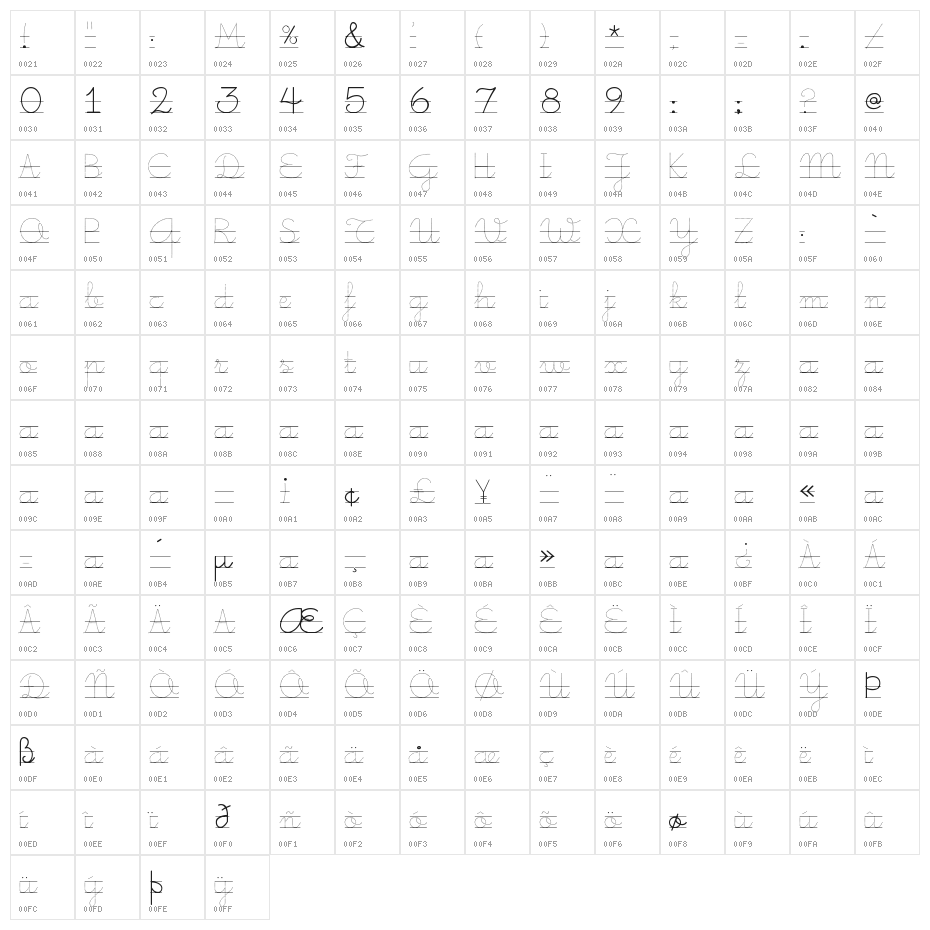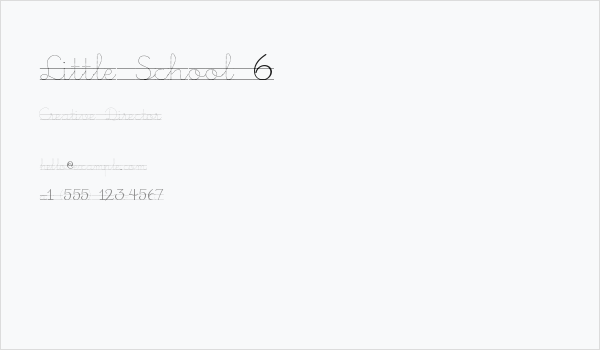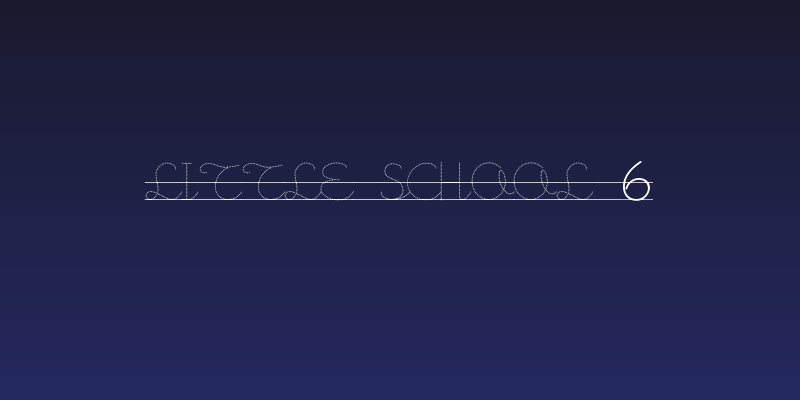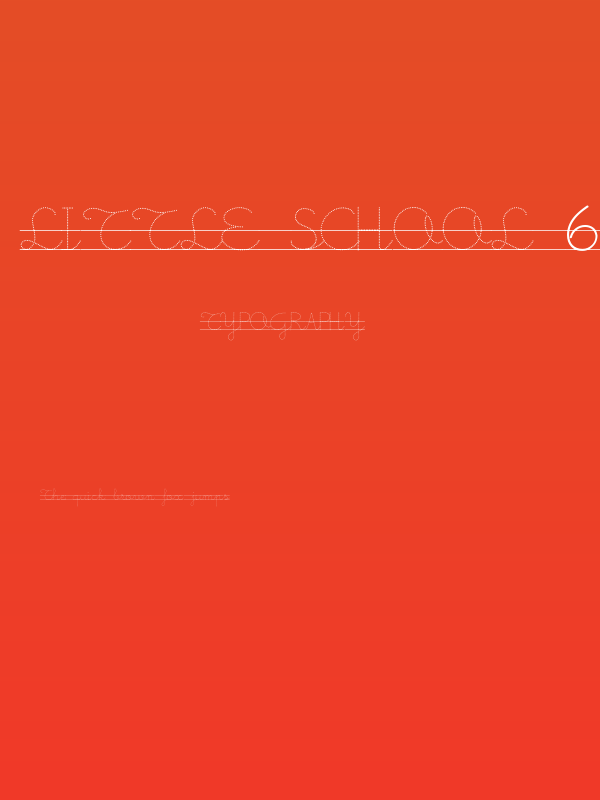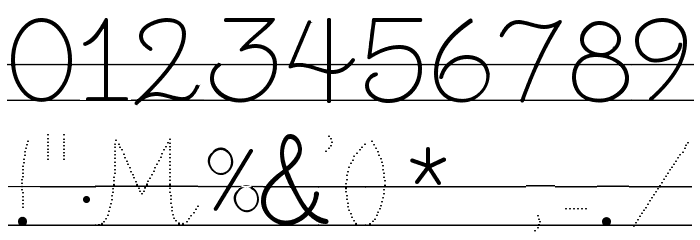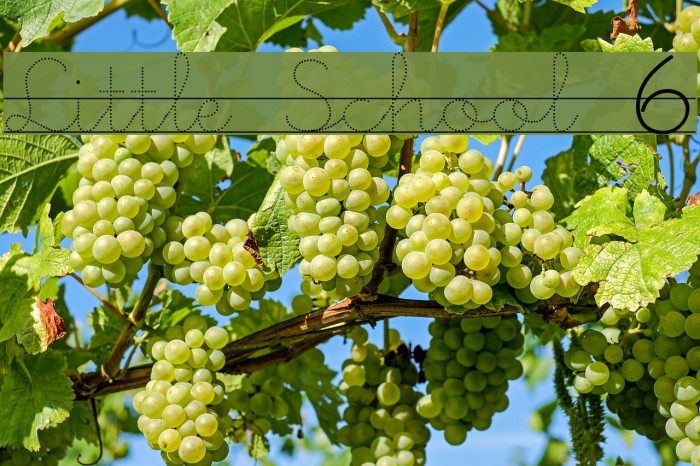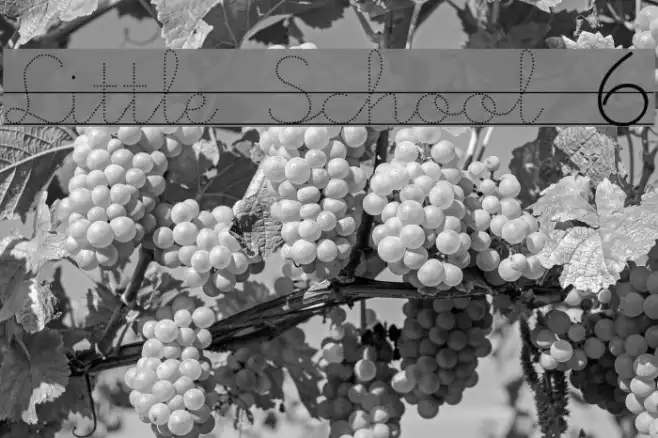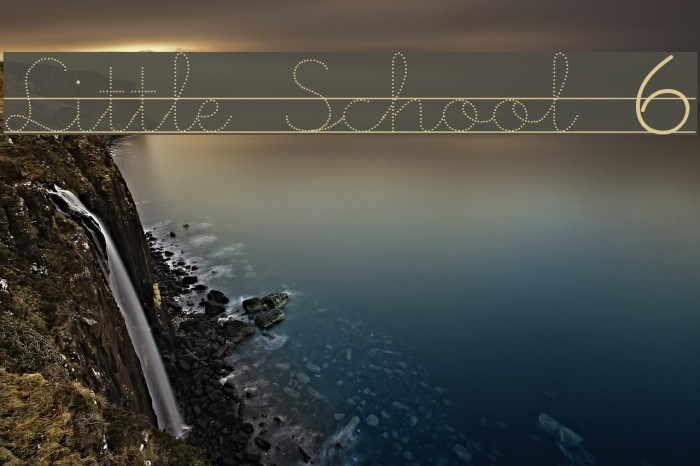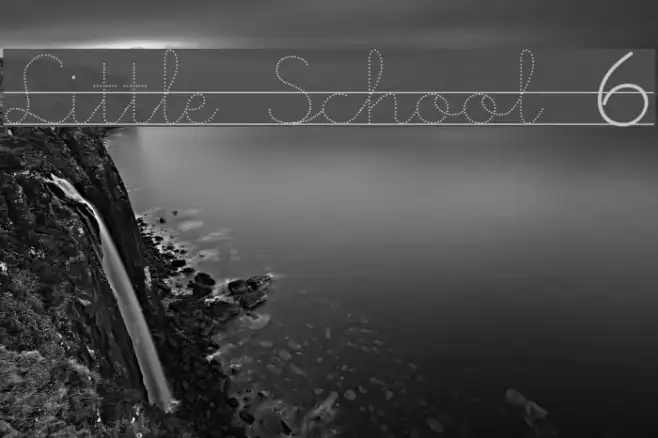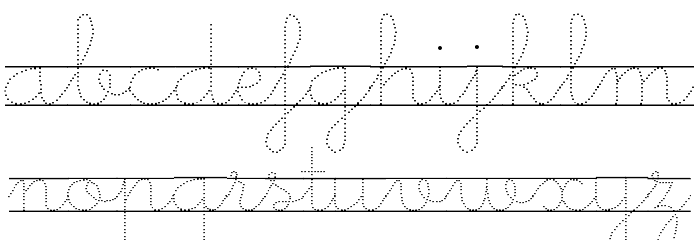
Little School 6 Font
Little School 6 Description
This font features a playful, educational style reminiscent of handwriting practice sheets used in early schooling. The uppercase and lowercase letters are crafted with dotted lines, guiding learners in forming each character. The numbers are bold and clear, providing easy readability. Special characters maintain the same dotted style, ensuring consistency throughout. This font is ideal for educational materials, particularly those aimed at teaching young children how to write. Its design encourages learning through a visually engaging and interactive approach.
| Overall Style | Educational, Playful |
| Use Case | Educational materials, Handwriting practice |
| Proposed Projects | Perfect for educational worksheets, children's books, and learning apps focused on handwriting skills. |